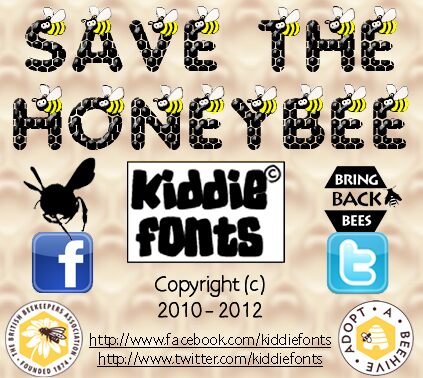
Save the Honeybee by SpideRaY is a free illustrated decorative display font built around a cheerful beekeeping motif. Broad capital letters are filled with irregular honeycomb cells, giving every shape a dense, patterned surface. Cartoon bees perch above and between the letters.
Packaging is an especially convincing setting for this lettering, since the honeycomb pattern can tie a product name directly to its ingredients or story. It also suits farmers' market signage, children's publishing, and conservation campaign posters with a friendly educational angle. The recurring bees make the font particularly apt for honey brands, pollinator projects, and garden-themed events.